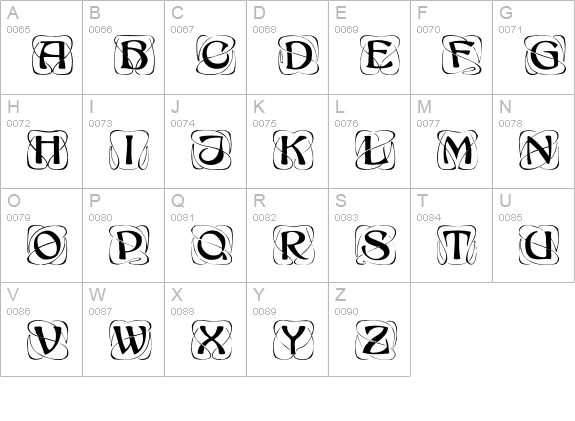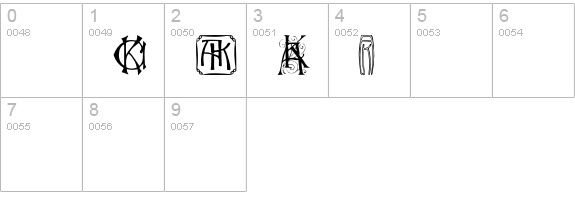
KonanurKaps Font Details
Introducing KonanurKaps, a charming and versatile font that adds a touch of elegance to any design project. This unique display font features intricate details and a stylish, handcrafted look that is sure to captivate your audience. With its vintage-inspired style and modern appeal, KonanurKaps is perfect for a wide range of creative applications, from branding and packaging to social media graphics and more. What sets KonanurKaps apart is its free-spirited flair and artistic charm, making it a standout choice for designers looking to make a statement. Whether you're working on a logo design, poster, invitation, or website, this font will bring a touch of sophistication and personality to your work. Best of all, KonanurKaps is freely available to download at FontsMarket.com, making it easy for you to access this stunning font and elevate your design projects. Don't miss out on the opportunity to add KonanurKaps to your font collection and bring your creative vision to life with this beautiful typeface.